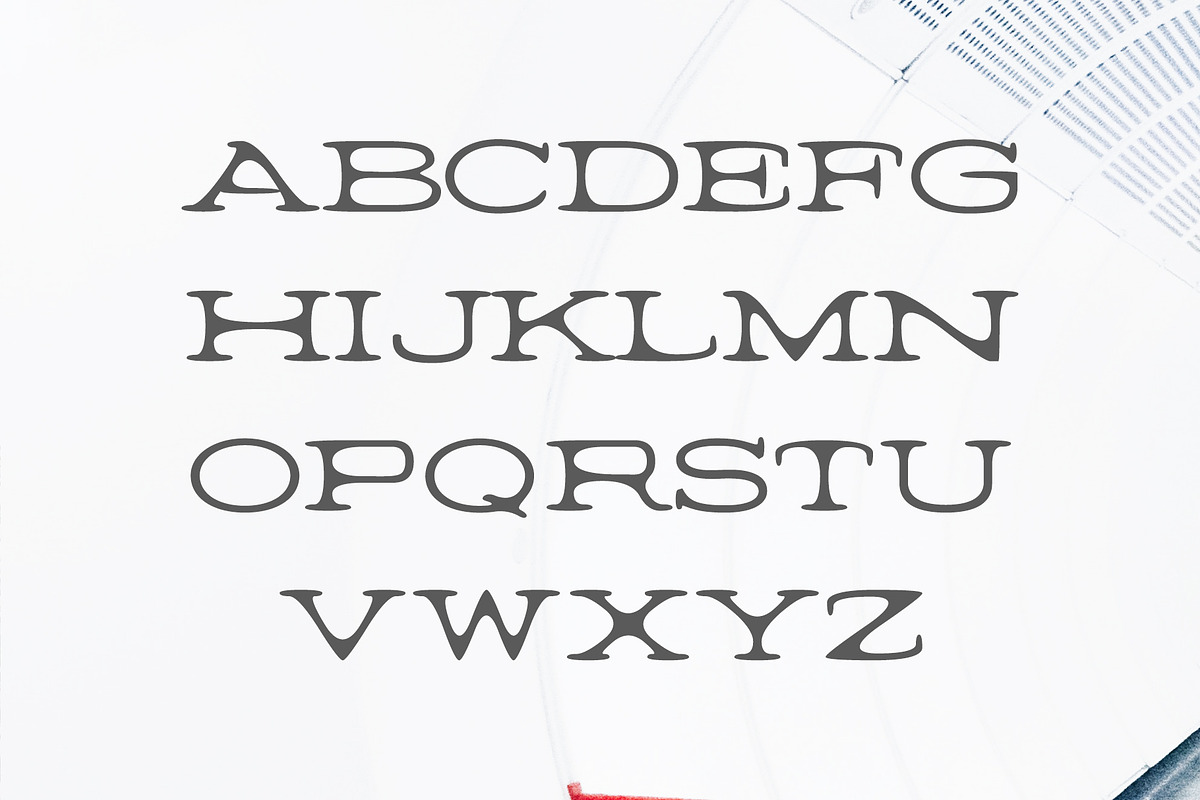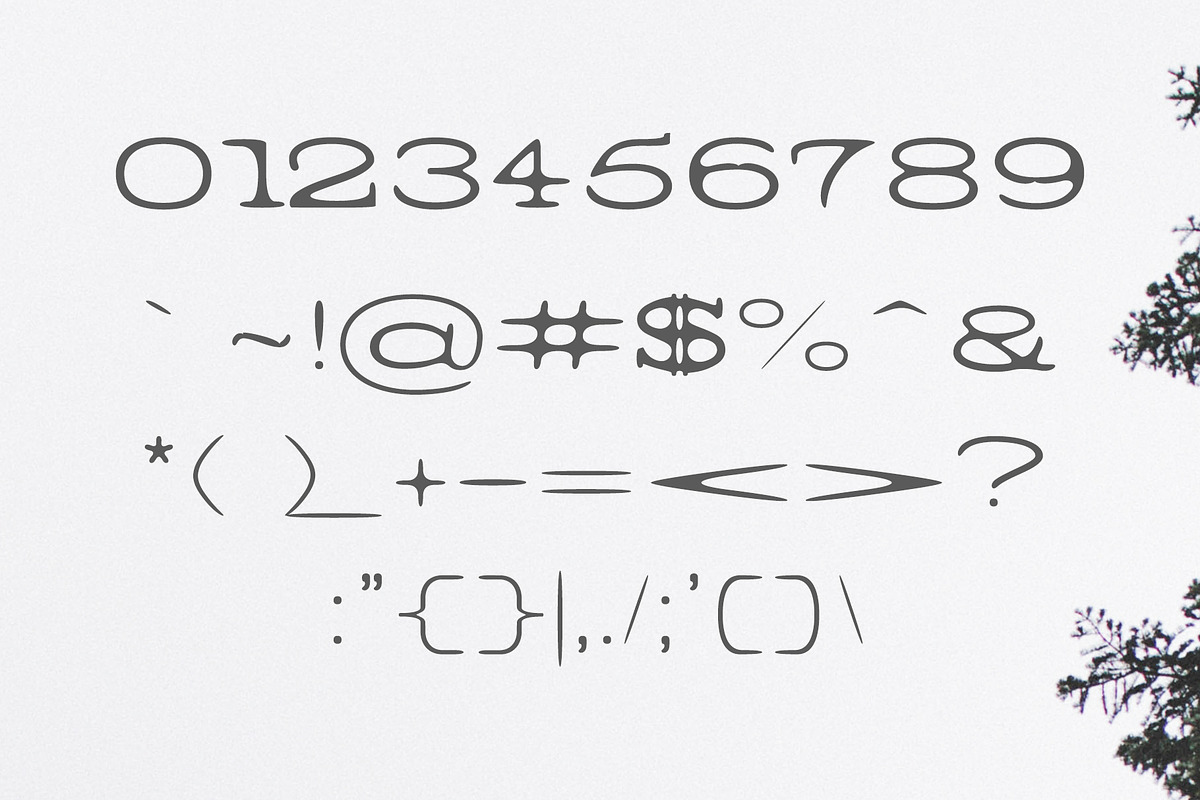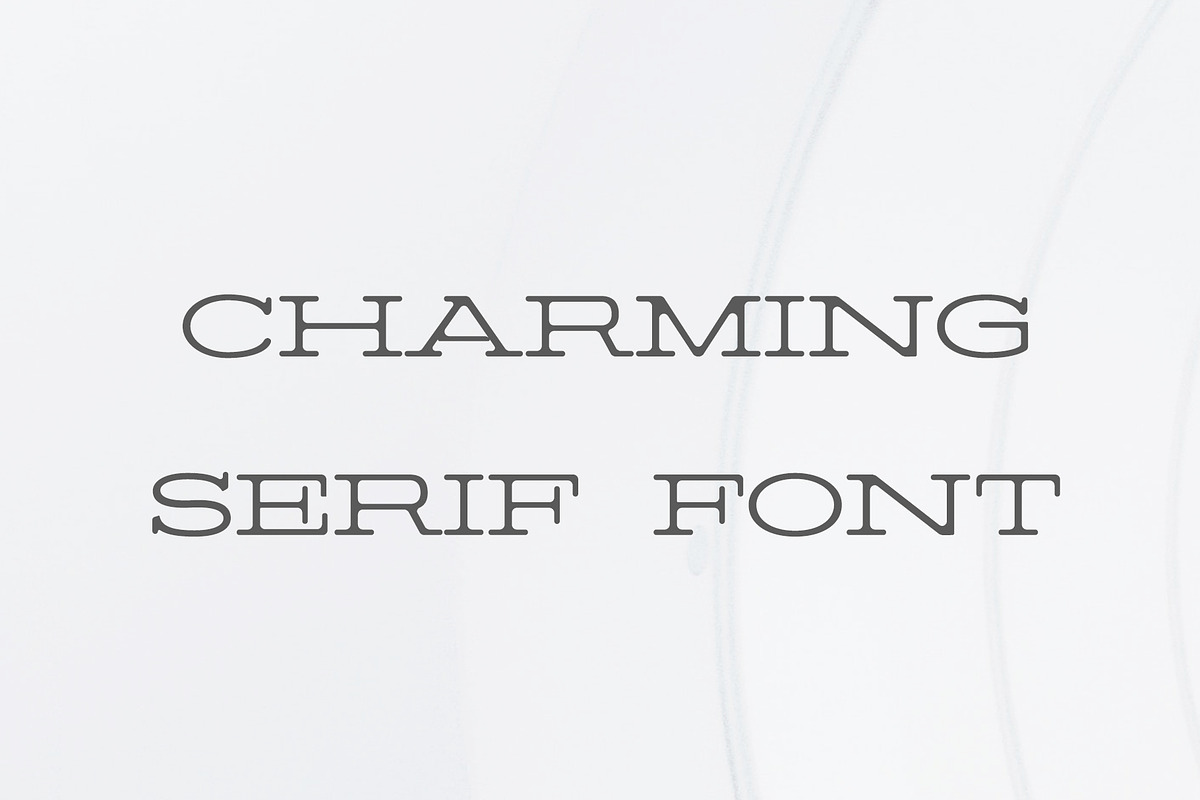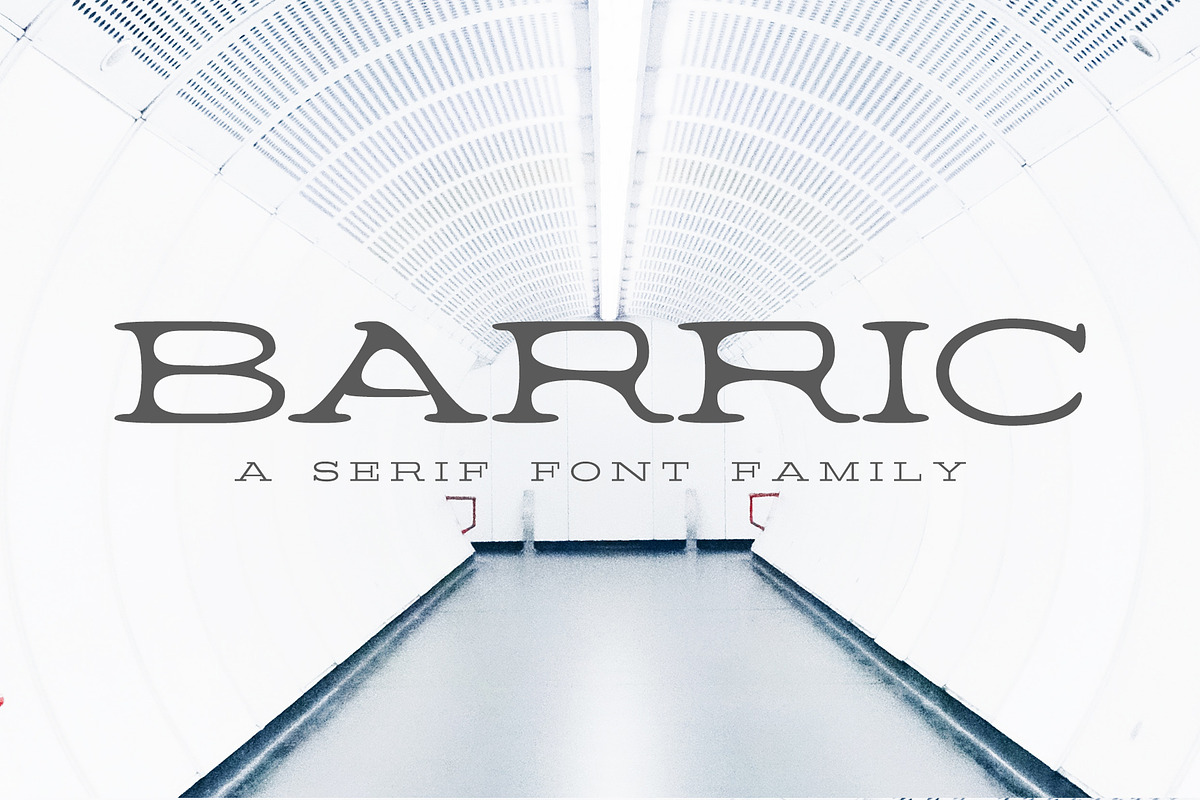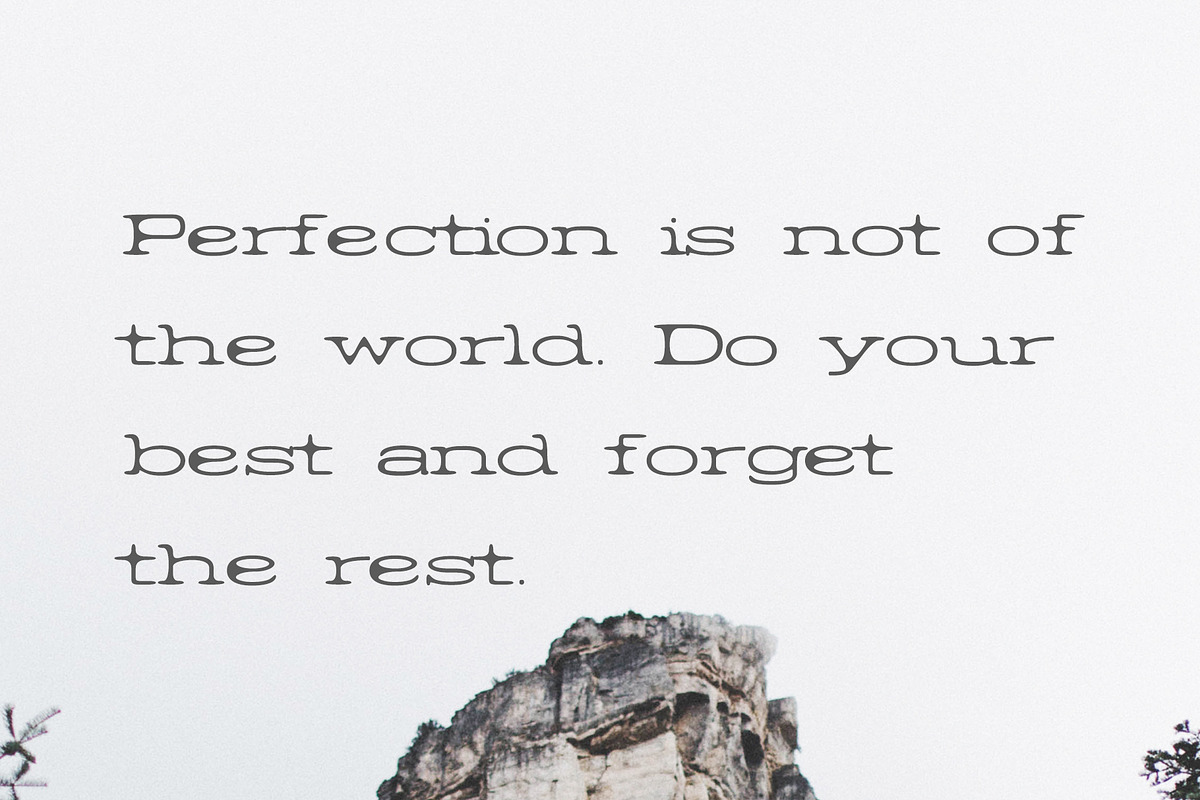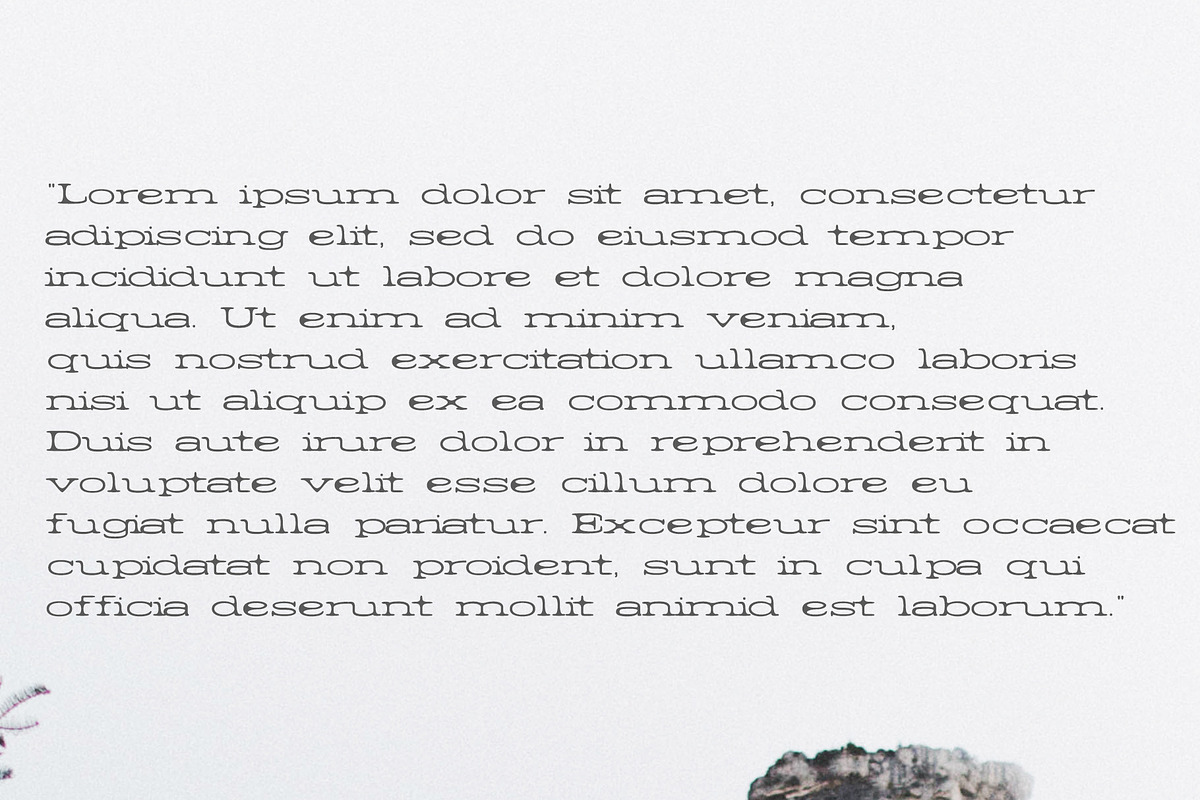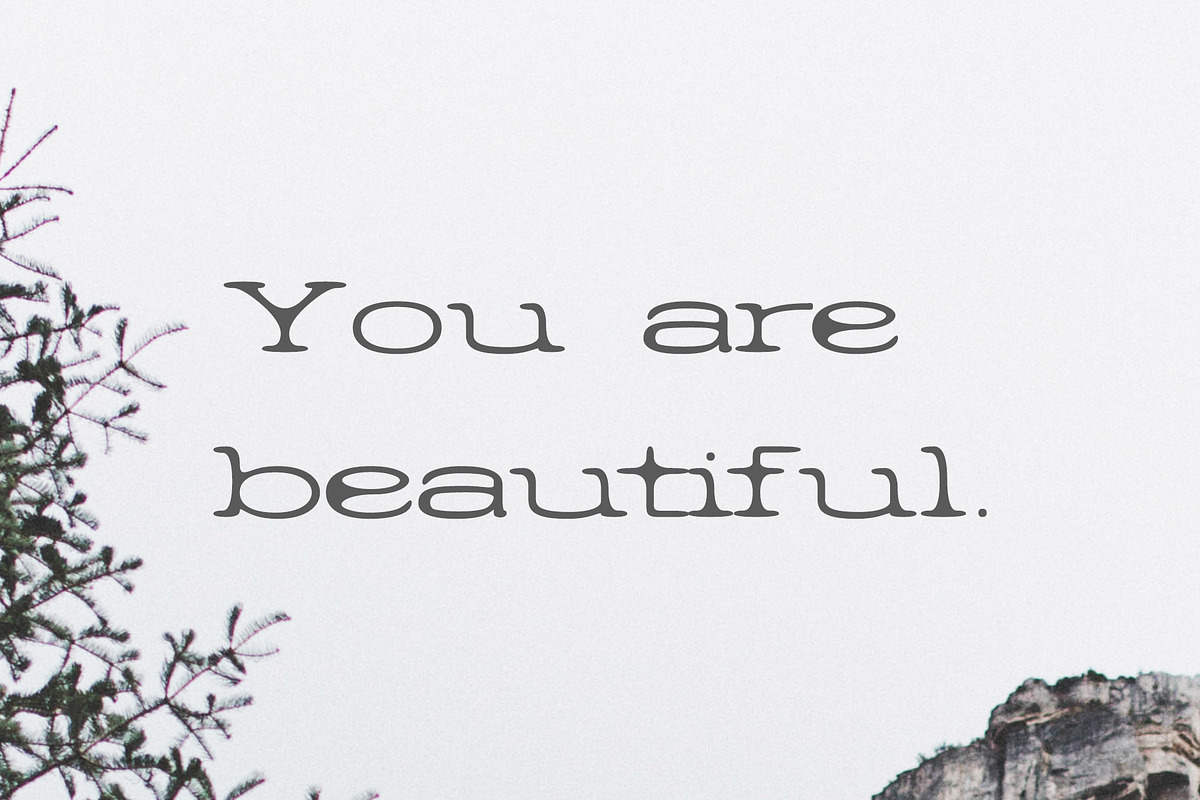
Barric A Serif Font Family
Barric A Serif Font Family is a clean rounded serif font with 5 different variations. It is great for headlines, logotypes, signage, advertising, magazine, logos, invitations, texts, posters, notices, titles, name card, web layouts, headers, branding, weddings, social media, product design, stationery, and other any business related.
- Font Weight: Regular, Light, Round, Smooth and Bold
- Font Features:
- Uppercase Letters
- Lowercase Letters
- Number and Punctuation
- Font Weight: Regular, Light, Round, Smooth and Bold
- Font Features:
- Uppercase Letters
- Lowercase Letters
- Number and Punctuation